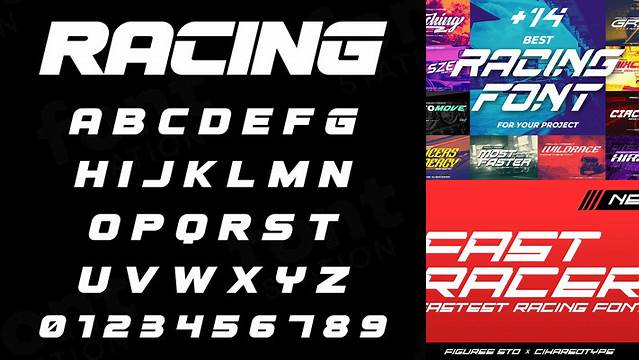
Download Free Racing Fonts For Speed & Style
Are you looking to inject some speed and energy into your designs? A racing speed font can be the perfect way to do just that! These fonts are designed to evoke the thrill and excitement of motorsports, making them ideal for projects related to cars, racing, sports, and anything that needs a dynamic and fast-paced feel. In this article, we'll explore the world of racing speed fonts, where you can find them for free, and how to choose the best one for your needs. So, buckle up, guys, and let's dive into the exciting world of fonts!
What is a Racing Speed Font?
Okay, so what exactly is a racing speed font? Well, these fonts are designed to mimic the look and feel of speed and motion. Think about the logos you see on racing cars, the graphics used in video games, and even the text on sports apparel. These fonts often have a slanted, italicized appearance, giving them a sense of forward movement. They might also feature bold, strong lines that convey power and energy. A great racing speed font instantly grabs your attention and communicates a sense of urgency and excitement.
The characteristics that define a racing speed font are diverse, but some common elements frequently appear. Italicized or slanted letterforms are a key feature, creating a visual illusion of movement and speed. This slant mimics the way objects appear when they're moving quickly past your field of vision. Bold and strong lines are also crucial, as they convey a sense of power and impact, essential for capturing the energy of a race. Many racing fonts incorporate geometric shapes and sharp angles, further enhancing their dynamic appearance. These sharp lines can suggest the precision and engineering involved in racing and high-performance vehicles.
Furthermore, some racing speed fonts include stylistic elements that emulate the look of speed streaks or aerodynamic designs. These can be subtle additions, like elongated tails on letters, or more prominent features, such as lines that trail behind the characters, giving the impression of motion blur. The overall effect is a font that not only looks fast but also feels technologically advanced and modern. When choosing a racing speed font, consider the specific characteristics that best match your project's needs. Are you looking for a font that is aggressive and bold, or something more sleek and sophisticated? The answer to this question will guide you in selecting the perfect font to convey your message.
Understanding these design elements is the first step in appreciating the versatility and impact of racing speed fonts. They're not just about speed; they're about capturing the essence of adrenaline, competition, and cutting-edge technology. Whether you're designing a logo for a racing team, creating promotional materials for a sports event, or simply adding some flair to your personal project, a well-chosen racing speed font can make all the difference. It's about creating a visual experience that resonates with your audience and leaves a lasting impression.
Another excellent option is DaFont. DaFont has a huge collection of fonts, and many of them are free for personal use. (Make sure to check the license if you plan to use a font for commercial work!) DaFont's interface is a bit more old-school than Google Fonts, but it's still easy to browse and search for what you need. The site is well-organized, with clear categories and tags that help you filter through the vast selection of fonts available. You can also preview each font with custom text, allowing you to see how it will appear in your designs before downloading. One thing to note is that the licensing terms for fonts on DaFont can vary, so it's always a good idea to double-check the usage rights before incorporating a font into a project, especially if it's for commercial use.
Font Squirrel is another fantastic resource for free fonts, particularly if you're looking for fonts that are licensed for commercial use. They hand-select their fonts and make sure they're high-quality and properly licensed. This means you can use them in your projects without worrying about copyright issues. Font Squirrel's website is clean and easy to navigate, with a robust search and filtering system that helps you find the perfect font for your needs. They also offer a handy "Font Identifier" tool that can help you identify fonts from images, which can be incredibly useful if you come across a font you like but don't know its name. This focus on quality and licensing makes Font Squirrel a go-to resource for designers and creatives who need reliable, free fonts for their projects.
Don't forget about sites like Creative Market and Envato Elements, which often offer free font downloads as part of their weekly or monthly freebies. While these sites primarily sell premium fonts and design assets, they frequently feature free items that can be a great way to expand your font library without spending any money. These freebies are often high-quality fonts that would otherwise cost money, so it's worth checking these sites regularly to see what's available. The free offerings can range from display fonts perfect for headlines to more versatile fonts that can be used in a variety of design contexts. By taking advantage of these free resources, you can build a diverse collection of fonts to use in your projects.
Choosing the right font can make a huge difference in the overall impact of your design. When it comes to racing speed fonts, you have a ton of amazing options to choose from, many of which are available for free. By understanding what makes a font convey speed and energy, knowing where to find free fonts, and considering the factors we've discussed, you can select a font that perfectly captures the spirit of your project. Remember to think about the tone, readability, context, and licensing, and don't be afraid to experiment until you find the perfect fit. So, go ahead, download some fonts, and rev up your designs with a racing speed font that will leave a lasting impression. Happy creating, guys!